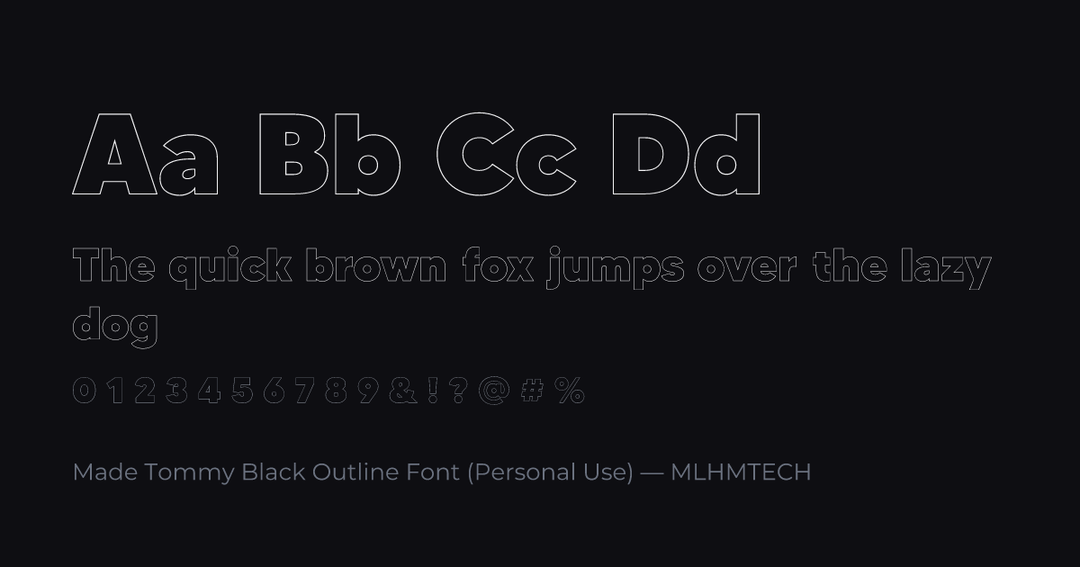
Made Tommy Black Outline Font (Personal Use)
Made Tommy Black Outline is a bold, modern display font with a distinctive outline effect. Ideal for eye-catching headlines, logos, and creative designs.
Made Tommy Black Outline is a striking display font that features a bold, black weight with a clean outline. Its strong presence makes it perfect for headlines, posters, and branding projects that need a contemporary edge.
Add a touch of modern sophistication to your designs with this versatile typeface. Whether you're creating a logo, social media graphic, or print material, Made Tommy Black Outline will make your text stand out.